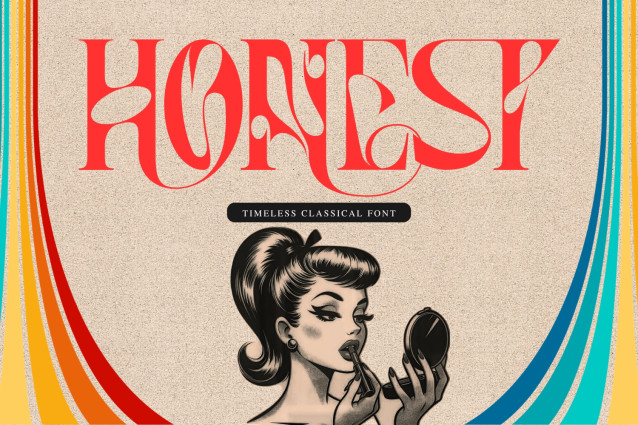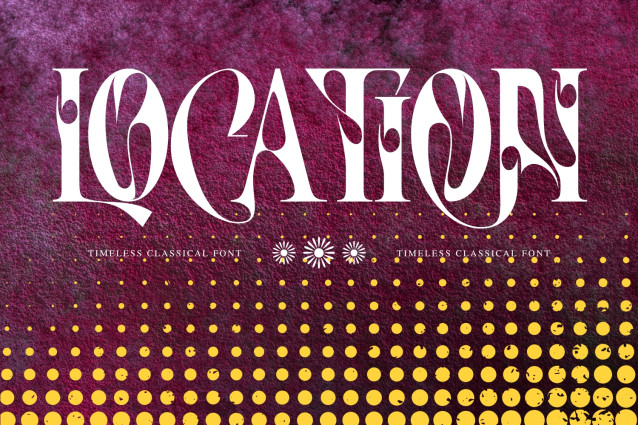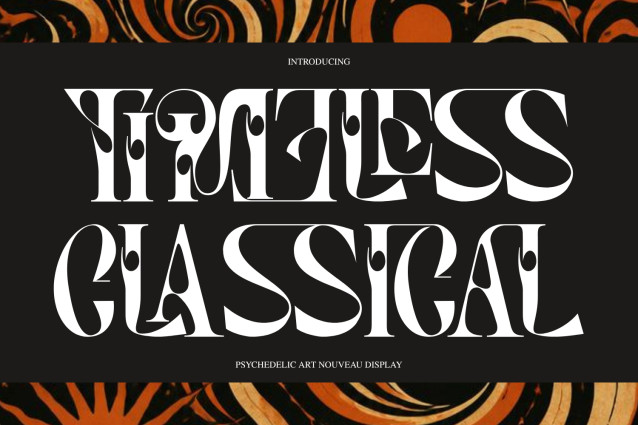
TIMELESS CLASSICAL FONT
TIMELESS CLASSICAL FONT – Avant-Garde High-Fashion Serif & Experimental Display Font is a spellbinding, avant-garde display serif typeface crafted at the intersection of haute couture editorial typography, organic liquid geometry, and high-end luxury design. Characterized by its extreme stem contrast, tall condensed proportions, and signature teardrop counter accents, this font seamlessly merges timeless classical elegance with bold, contemporary experimentation.
Engineered with fluid curved swashes and tight interlocking character rhythm, TIMELESS CLASSICAL effortlessly transforms standard display titles into bespoke, gallery-worthy logotypes. Its distinctive teardrop cutouts and sweeping organic forms give every word an unmistakable sense of movement and prestige. It is the ultimate typographic choice for luxury fashion branding, high-end editorial layouts, boutique perfume packaging, art gallery exhibition posters, and high-concept logos.